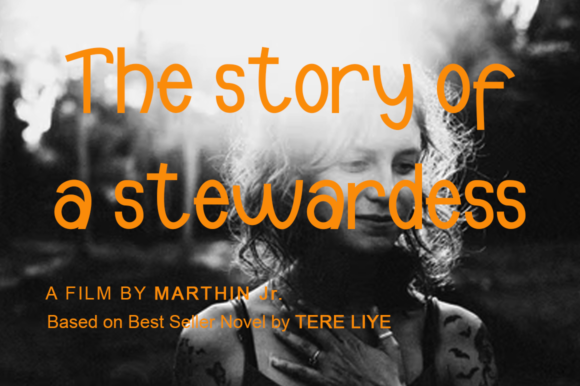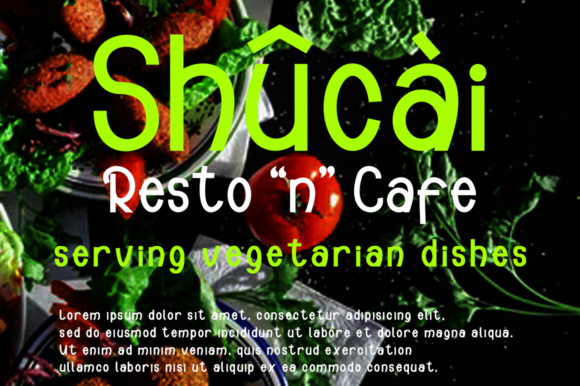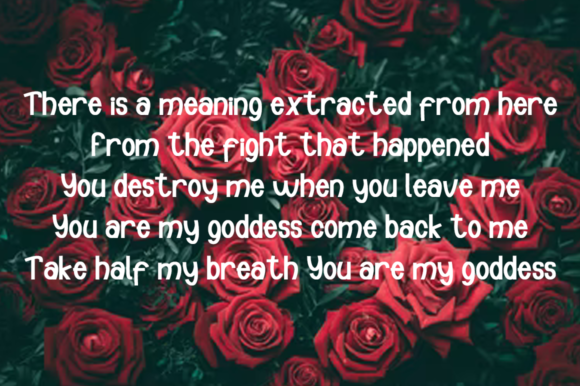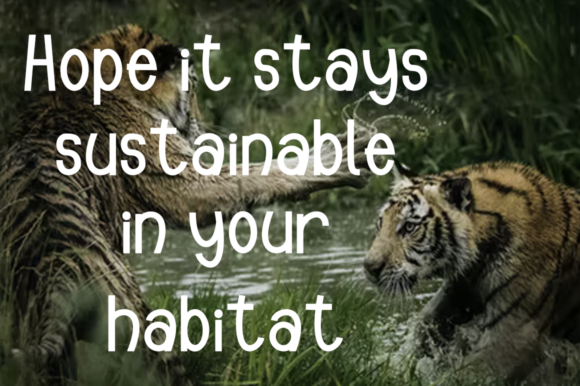
Unleash Your Creativity with Crusher Font: A Cool and Adaptable Display Font
Are you a designer or crafter looking for a font that can elevate your creations to the next level? Look no further than Crusher Font, a cool and adaptable display font that can enhance any project. With its unique style and versatility, Crusher Font is a wonderful asset to add to your font library, regardless of the topic or theme.
What Makes Crusher Font So Special?
Crusher Font is a display font that boasts a distinctive and modern style, making it perfect for a wide range of applications. Its cool and edgy vibe is sure to grab attention and leave a lasting impression on your audience. Whether you’re working on a logo, poster, social media graphic, or website, Crusher Font is the perfect choice.
Key Features of Crusher Font
- Unique Style: Crusher Font has a one-of-a-kind style that sets it apart from other fonts. Its bold and edgy design makes it perfect for creating eye-catching headlines and titles.
- Adaptability: Crusher Font is incredibly versatile and can be used for a wide range of projects, from logos and posters to social media graphics and websites.
- Legibility: Despite its bold and edgy design, Crusher Font is surprisingly legible, making it perfect for use in a variety of contexts.
- Customization: Crusher Font can be easily customized to fit your specific needs, allowing you to create a unique look that matches your brand or style.
How to Use Crusher Font in Your Designs
Crusher Font is incredibly easy to use and can be incorporated into your designs in a variety of ways. Here are a few ideas to get you started:
- Logos: Use Crusher Font to create a bold and eye-catching logo that sets your brand apart.
- Posters: Crusher Font is perfect for creating attention-grabbing posters that showcase your message or product.
- Social Media Graphics: Use Crusher Font to create eye-catching social media graphics that grab attention and drive engagement.
- Websites: Crusher Font can be used to create bold and eye-catching headlines and titles on your website, adding a touch of personality and style.
Benefits of Using Crusher Font
There are many benefits to using Crusher Font in your designs, including:
- Increased Visibility: Crusher Font is designed to grab attention and increase visibility, making it perfect for use in advertising and promotional materials.
- Improved Brand Recognition: By using Crusher Font in your designs, you can create a consistent and recognizable brand identity that sets you apart from your competitors.
- Enhanced Creativity: Crusher Font is a versatile and adaptable font that can be used in a wide range of contexts, allowing you to experiment and try new things.
In conclusion, Crusher Font is a cool and adaptable display font that can enhance any creation. With its unique style, versatility, and legibility, Crusher Font is a wonderful asset to add to your font library. Whether you’re a designer or crafter, Crusher Font is the perfect choice for anyone looking to elevate their designs and take their creativity to the next level.